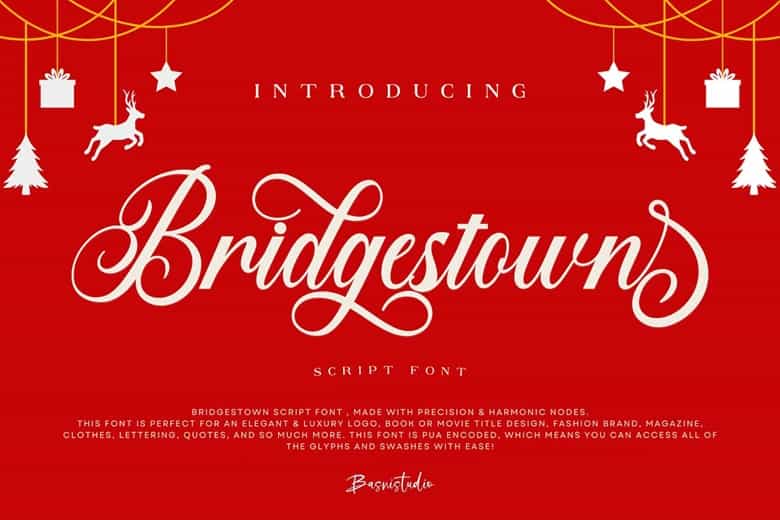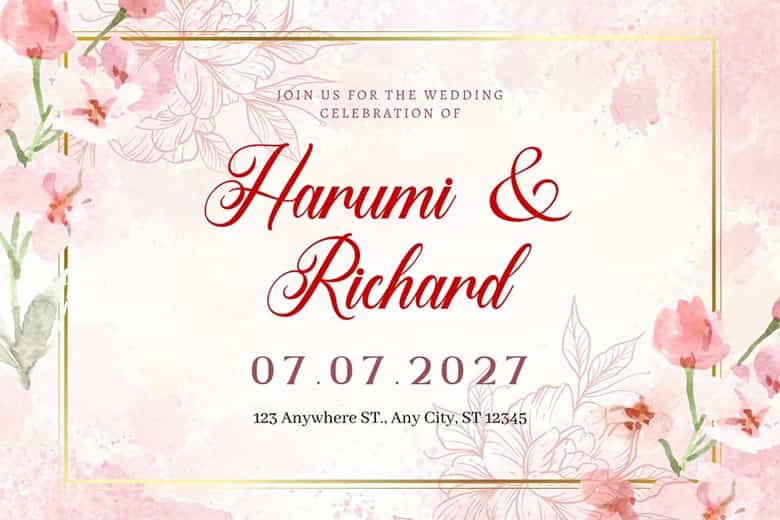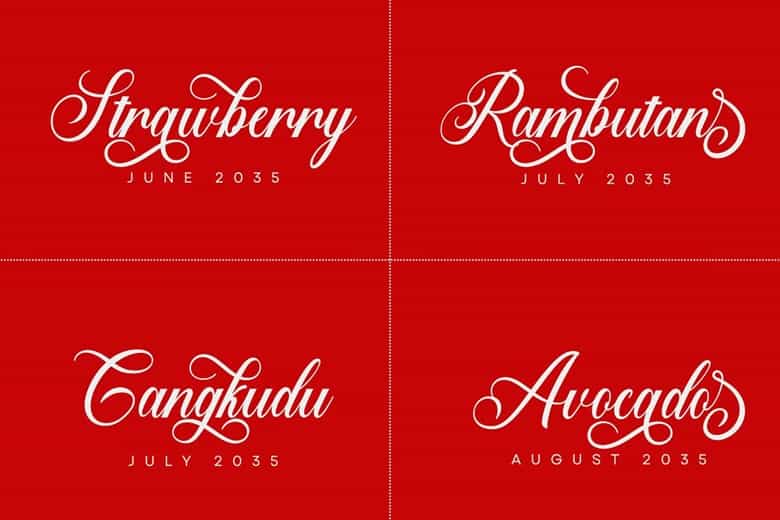
Discover Bridgestown Font, part of the Calligraphy collection—a versatile and unique font perfect for adding a personal touch to your projects. Download it for free and enjoy crafting designs with style, from invitations to social media posts. This font is available exclusively for personal use, giving you the freedom to create without limits. Unlock your creativity with Bridgestown Font today!
Bridgestown is a new modern calligraphy script font. This font is well suited for an elegant & luxury logo, book or movie title their names, fashion brand, magazine, clothes, letters, quotes, And Much More. This font is PUA encoded so you have full access to all of the glyphs and swashes!